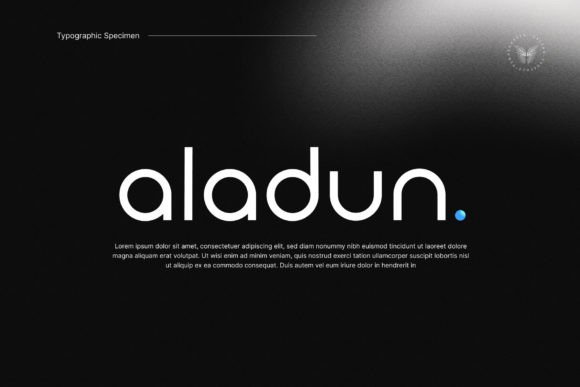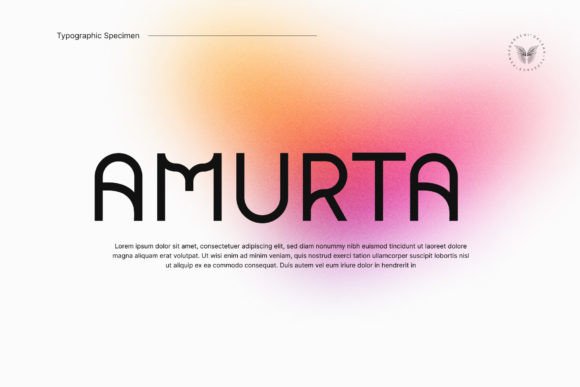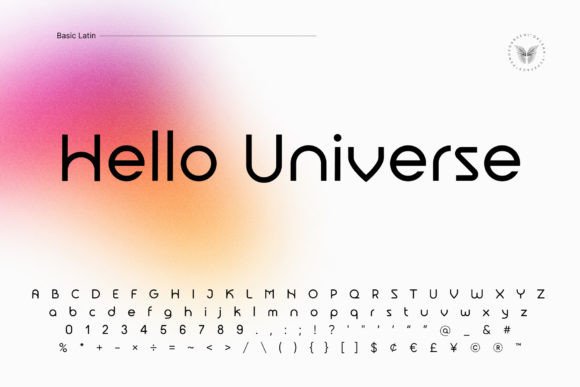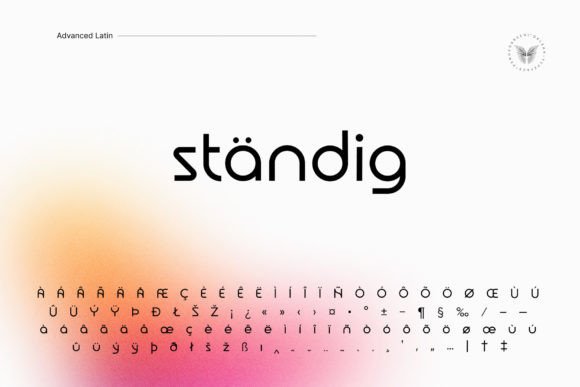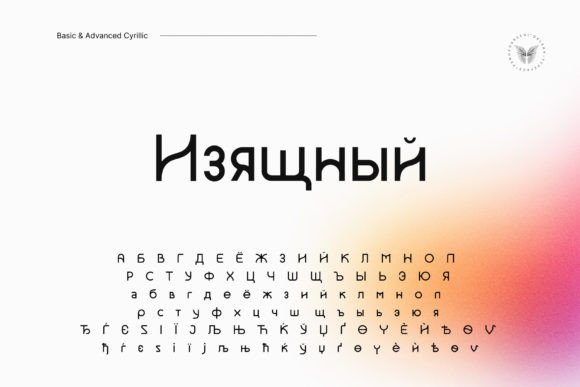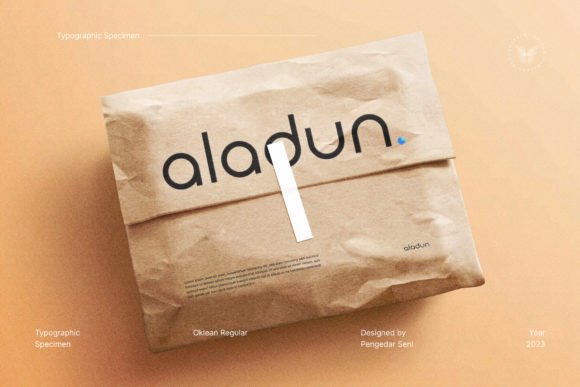
Introduction to Oklean Font
Oklean is a stylish and modern sans serif font that features clean lines and a sleek, minimalist design.
Its versatility makes it perfect for a wide range of applications, from branding and web design to editorial and advertising projects The fontโs simplicity and elegance make it a popular choice for contemporary designs.
Key Features of Oklean Font
Why Choose Oklean Font?